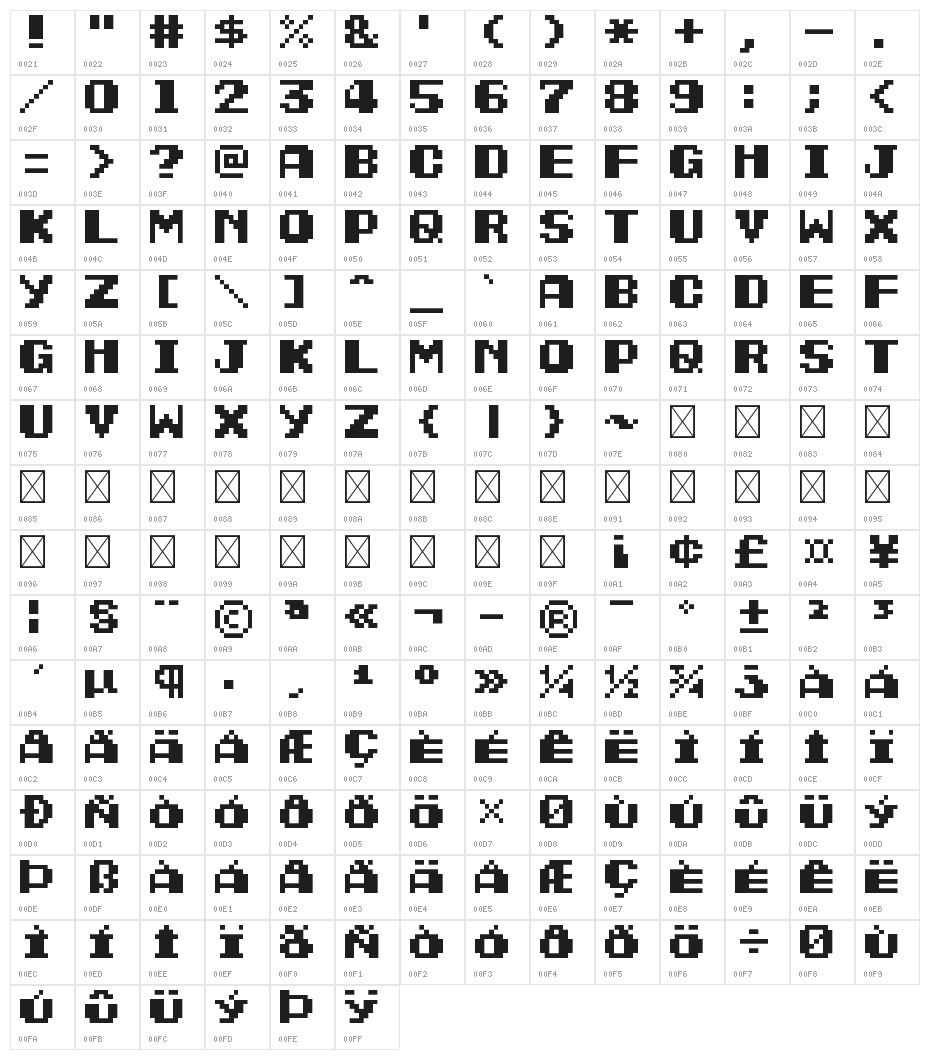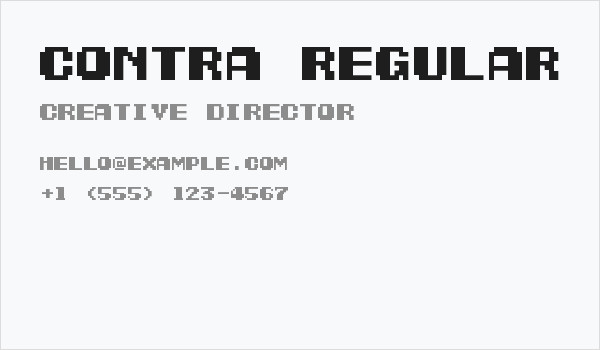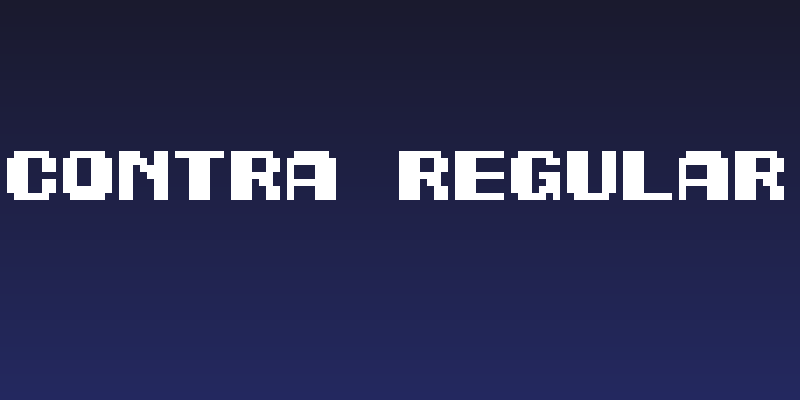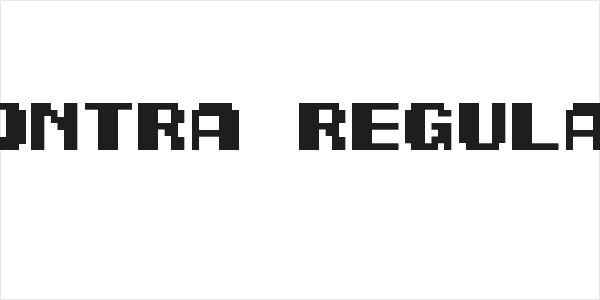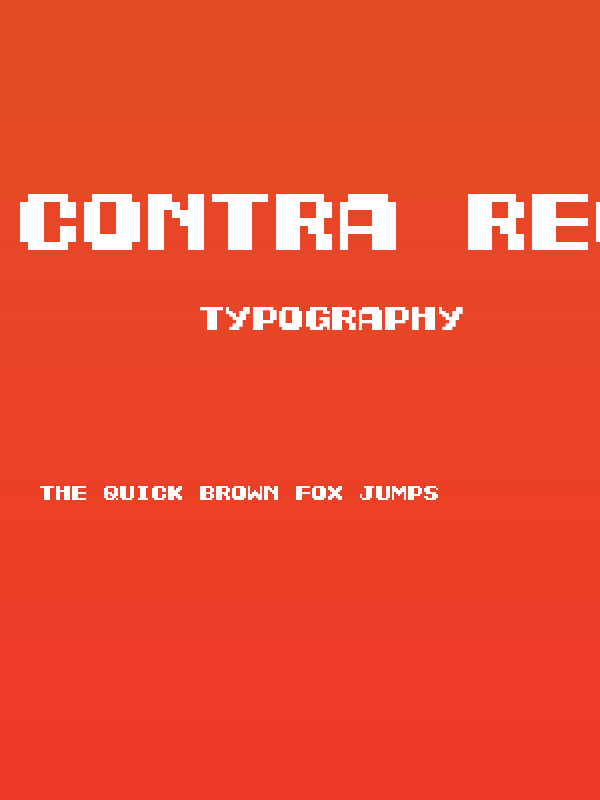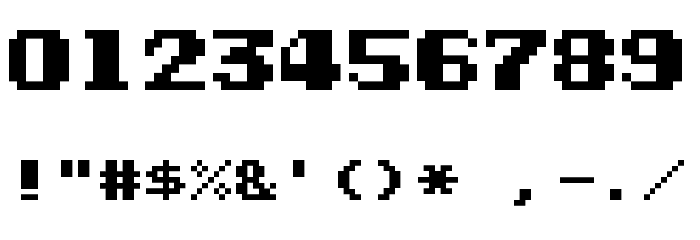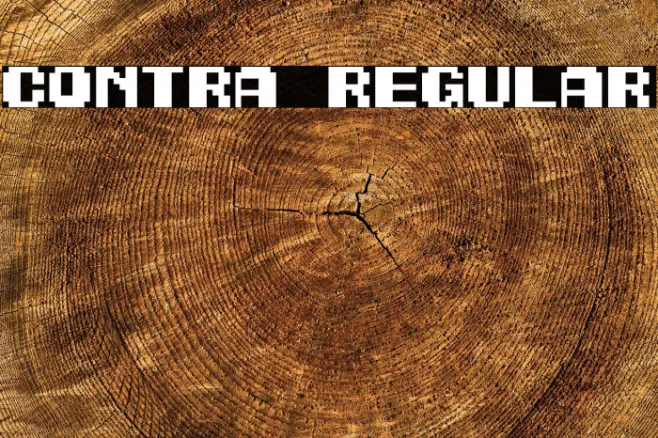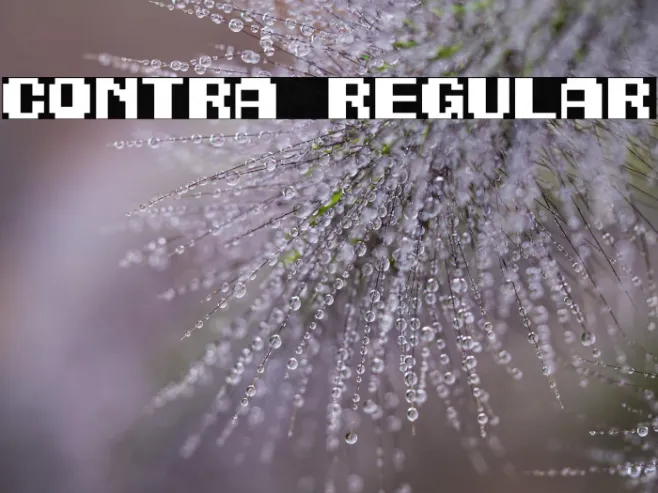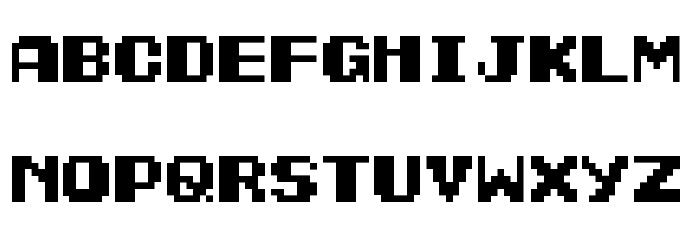
Contra Regular Font
Contra Regular Description
This font features a bold, pixelated style reminiscent of early digital and video game typography. Each character is constructed with a blocky, grid-like appearance, giving it a distinct retro and digital aesthetic. The uppercase and lowercase letters maintain a consistent height, emphasizing uniformity and simplicity. Numbers and special characters follow the same pixelated design, ensuring a cohesive look across all glyphs. The font's geometric and monospaced nature makes it ideal for projects that require a vintage or tech-inspired feel.
| Use Case | Headlines, Logos, Digital Art |
| Proposed Projects | Ideal for video game design, retro-themed posters, digital art, and tech-related branding. |